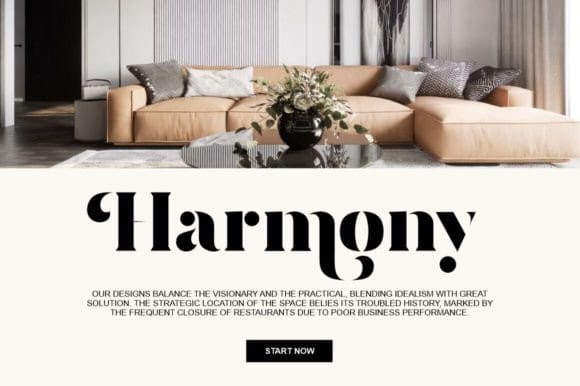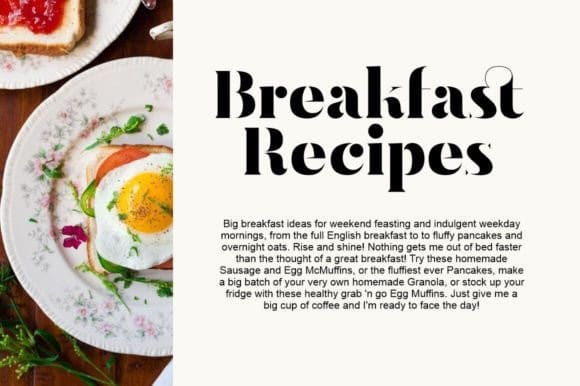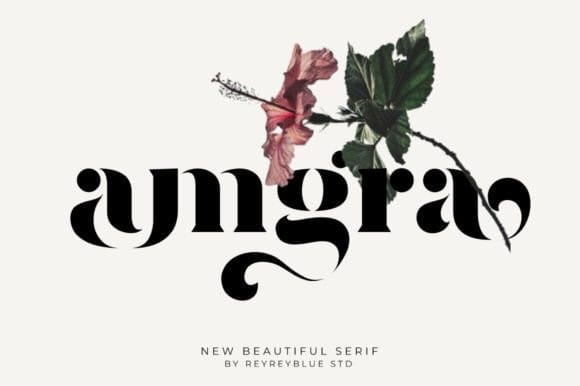
Amgra Font
Amgra Font is a modern and elegant stencil font. This elegant typeface contains many attractive alternates and ligatures. This type of font is perfectly made to be applied especially in logos, headlines, signage, and other various formal forms such as invitations, labels, logos, magazines, books, greeting/wedding cards, packaging, fashion, makeup, stationery, novels, labels, or any advertising purpose. This product was created to help you make your digital images even more beautiful and unique.